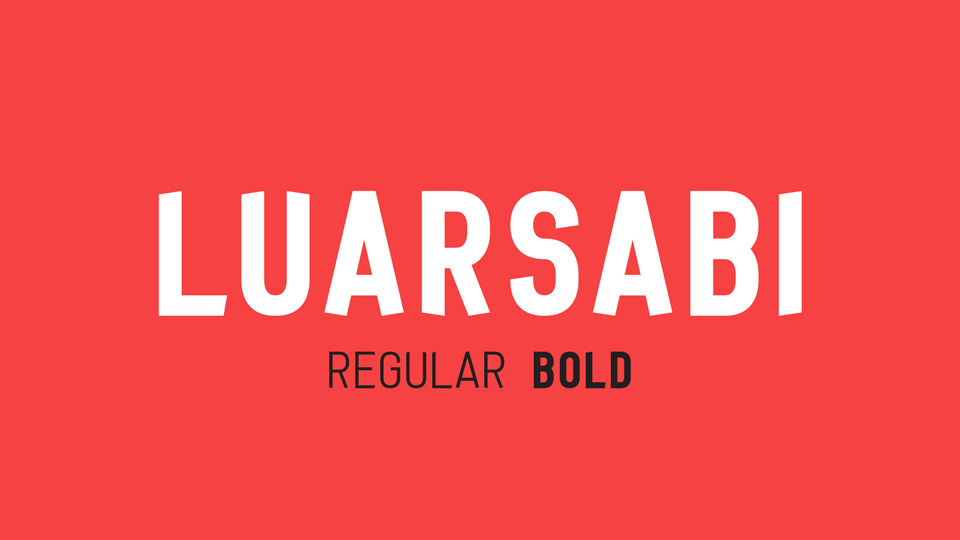
Feb 10, 2025DisplayLuarsabi Typeface Luarsabi is a display typeface with nice capital letters only. It comes in Regular and Bold weights and supports Latin and Georgian languages.Luarsabi perfectly fits for posters and headlines. Font DetailsDesigned by: Archil ImnadzeWebsiteLicense: Free for commercial use, OFL Download Luarsabi TypefaceFile size: 28.00 KBCreated: February 16, 2025Updated: February 16, 2025 Download Explore related fonts Valencia Font Family Tablón Font Family Romestone Font Family HipHep Font Family Merida Coast Font Family Rumblebee Font Family Hangthing Font Family Blackout Font Family # Bold# Family More fonts by Archil ImnadzeAznauri Typeface